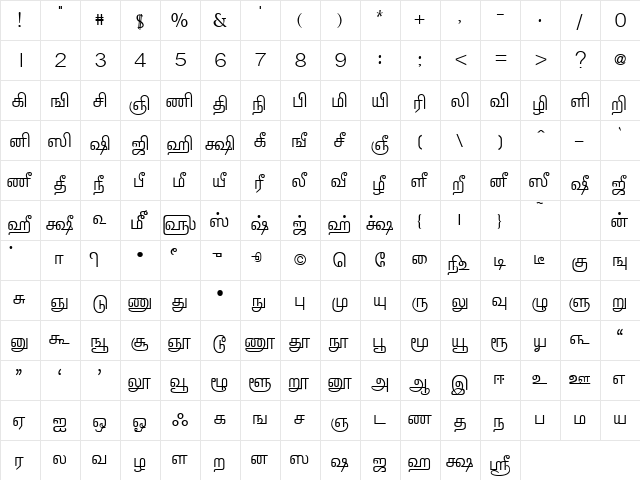
Amudham2000 Normal Font Preview
Amudham2000 Normal
Amudham2000 Normal Font Details
Design Context for Amudham2000 Typeface
Amudham2000 offers clean, dependable letterforms without strong stylistic allegiance, making it a practical choice for designers who need flexibility.